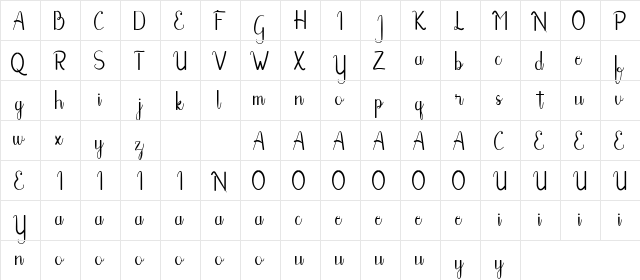
Reyna Demo Regular
Design Context for Reyna Demo Typeface
Reyna Demo takes a measured approach to typography — its balanced proportions and neutral character make it a reliable workhorse for both digital and print work.